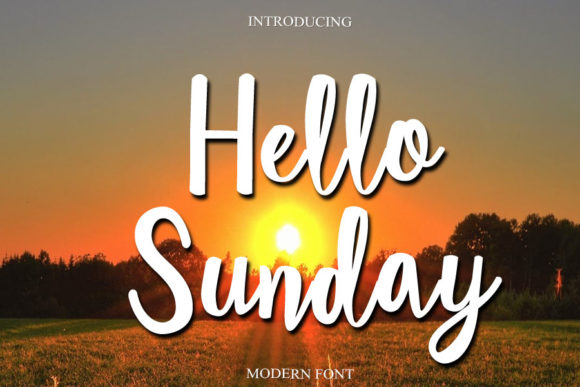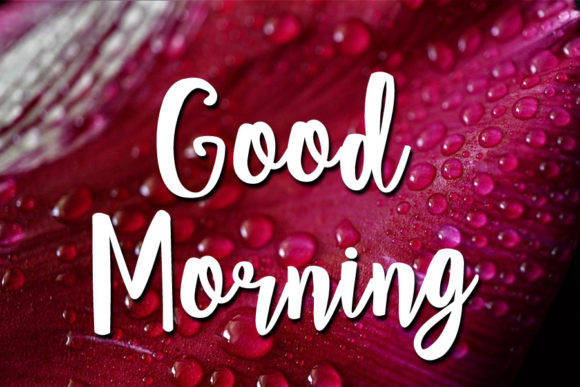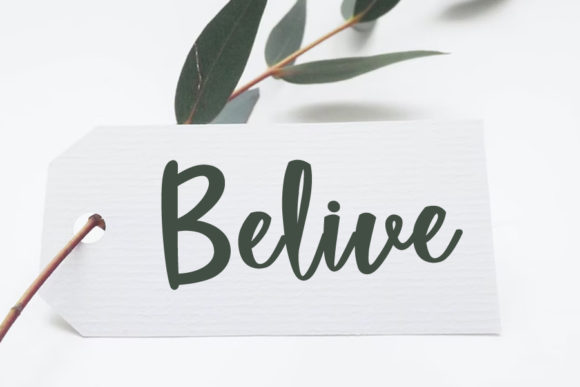
About Hello Sunday Font
“Hello Sunday” emerges as a font that embodies the essence of modern trendiness and stylishness. With meticulous craftsmanship, this script font has been masterfully designed to become an instant favorite, poised to elevate each of your creative ideas to new heights.
Imagine “Hello Sunday” as a contemporary brushstroke, effortlessly enhancing your projects with its trendy flair. Its sleek and stylish demeanor adds a touch of sophistication to your designs, creating an atmosphere of modernity that captures attention. As you integrate this font into your creations, you embark on a journey where your concepts evolve into impactful and visually captivating narratives.
This font becomes a catalyst for exceptional design, infusing your projects with an air of contemporary charm. Whether it’s accentuating the allure of logos, invigorating social media posts, or adding an element of elegance to various creative endeavors, “Hello Sunday” is ready to be the stylish thread that weaves through your designs.
In a design landscape where trendiness and sophistication are paramount, “Hello Sunday” stands as your trusted tool for crafting designs that resonate with modern sensibilities. Let its trendy and stylish strokes be the artistic elements that elevate your creations, infusing them with a sense of vibrancy and allure. Embrace the chic essence of “Hello Sunday” and experience how it enhances your projects, ensuring that each one reaches its highest potential and captivates with contemporary flair.